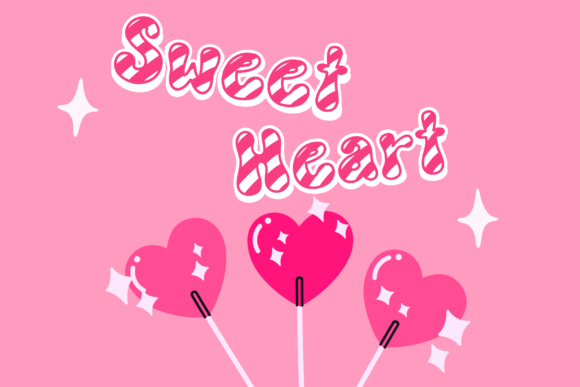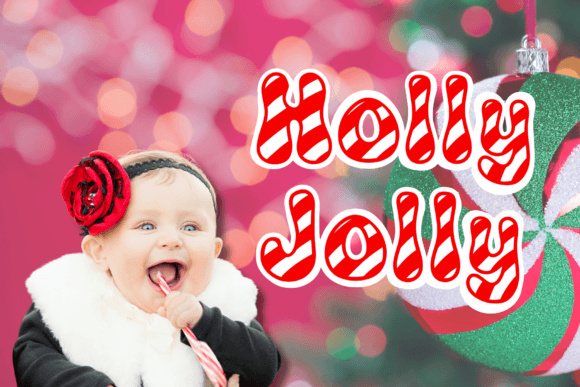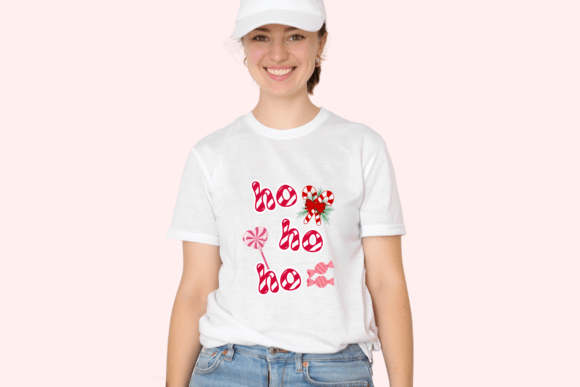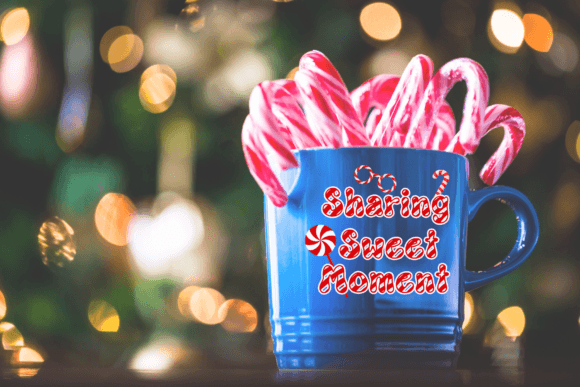
Candy Cane Font
Do you remember the very first time you saw a candy cane hanging on a Christmas tree branch? Can you recall the minty taste, sometimes with a slight favor of cinnamon? Can you evoke in your mind the scent of the tree filling up the room? Well, if you do, you can appreciate this font, and use it to bring those memories to print.
Candy Cane Retro is a fun, festive, and incredibly unique decorative font. It can be used for various design ideas, particularly those related to the Christmas Holiday.